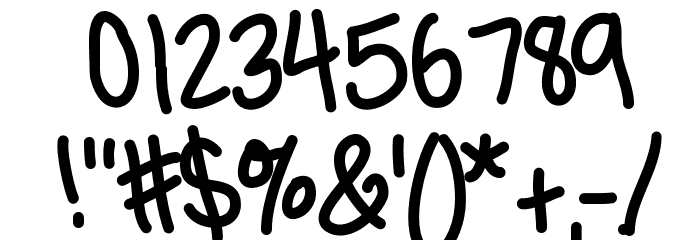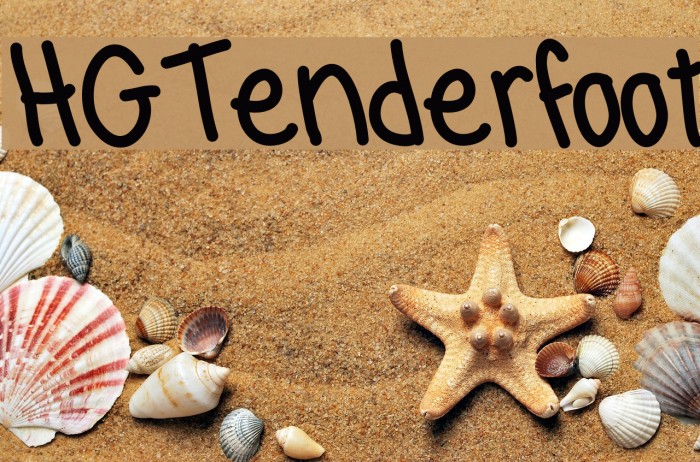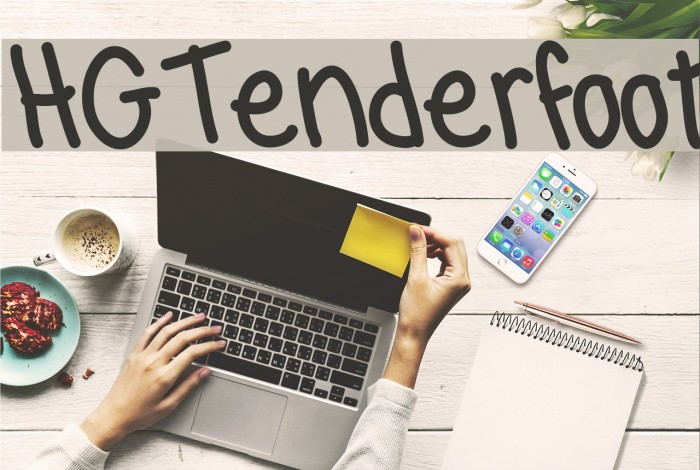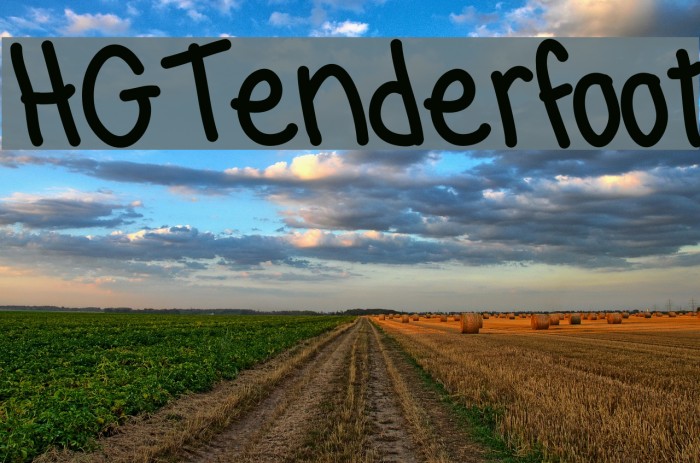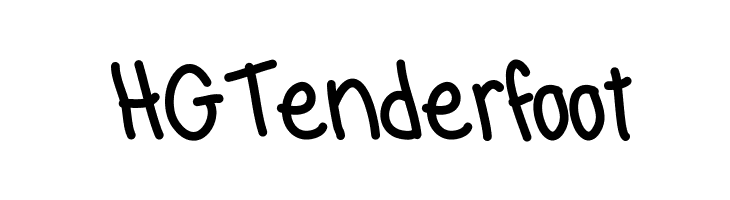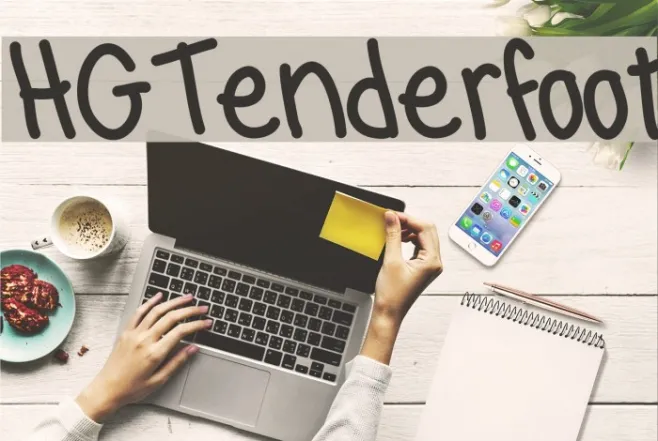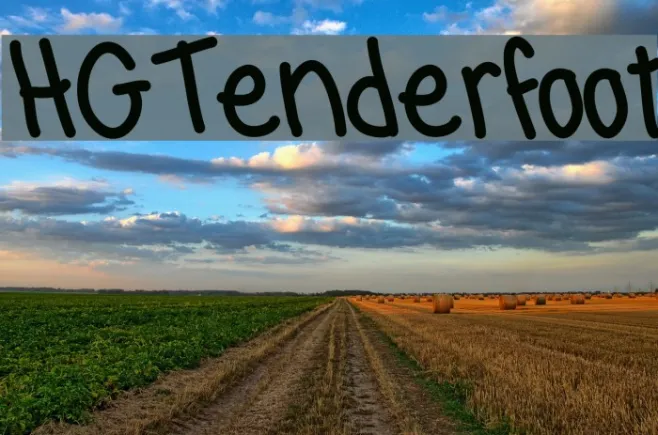
HGTenderfoot Font
This font exudes a playful and casual vibe, characterized by its handwritten style. The letters are rounded and slightly irregular, giving it a friendly and approachable appearance. The strokes are consistent in thickness, contributing to a uniform look across all characters. The uppercase and lowercase letters maintain a harmonious balance, while the numerals and special characters blend seamlessly with the overall design. This font is perfect for projects that require a personal touch, such as greeting cards, invitations, or children's book illustrations.
A playful, handwritten font with rounded, consistent strokes.
- Proposed Projects: Ideal for greeting cards, invitations, children's books, and casual branding.
- Category: Handwritten
- Overall Style: Casual
- Use Case: Headlines, Informal text, Creative projects